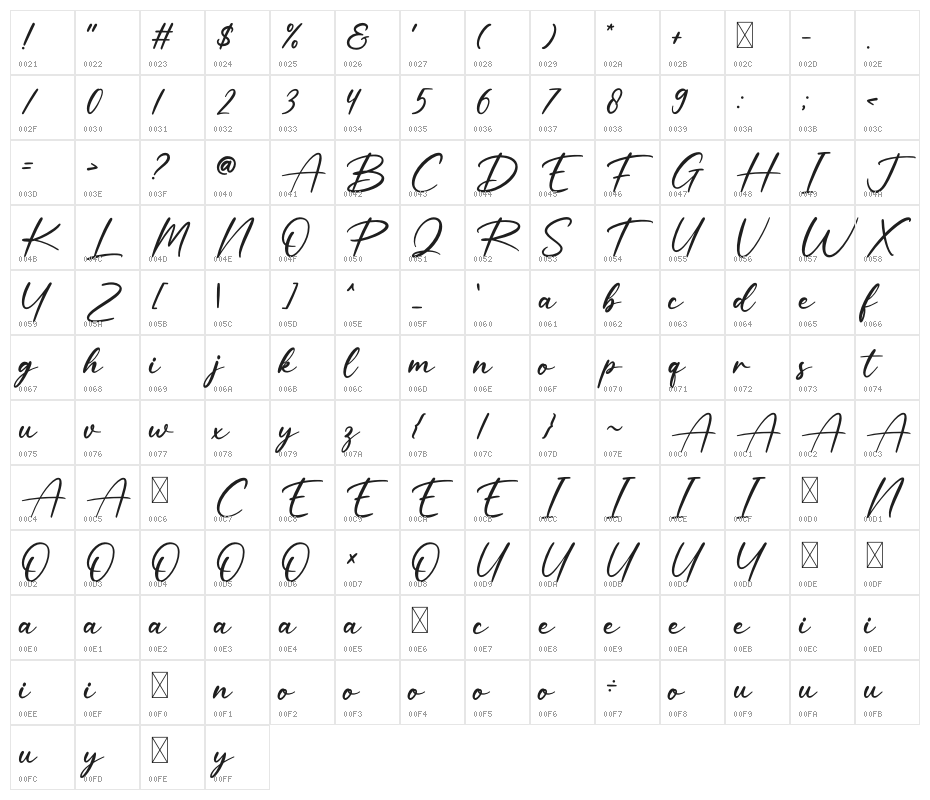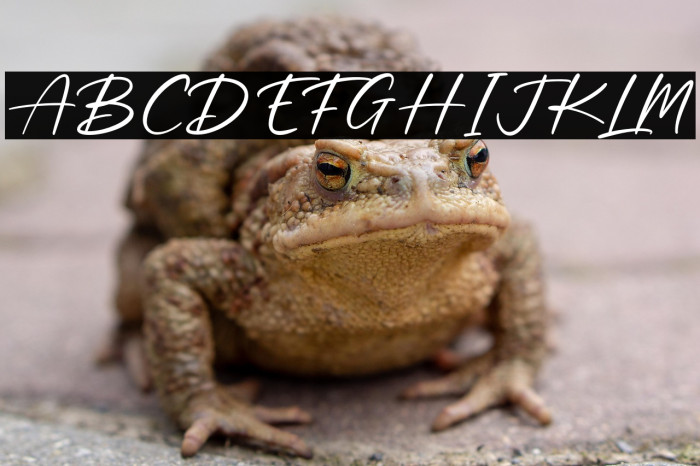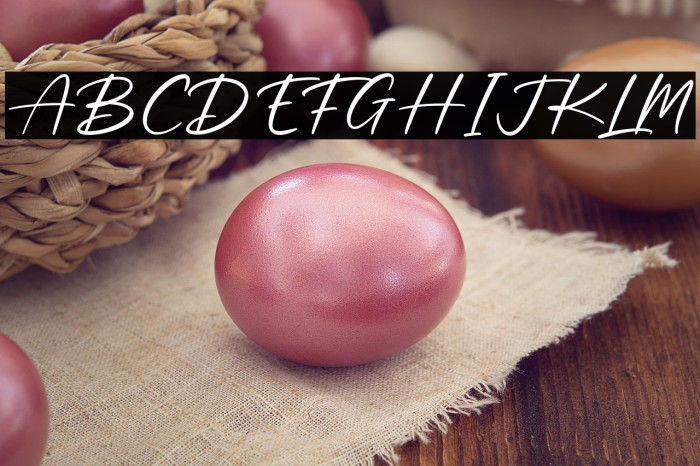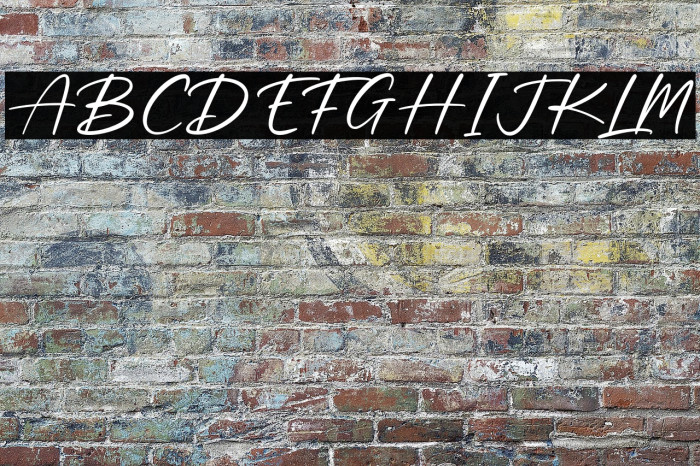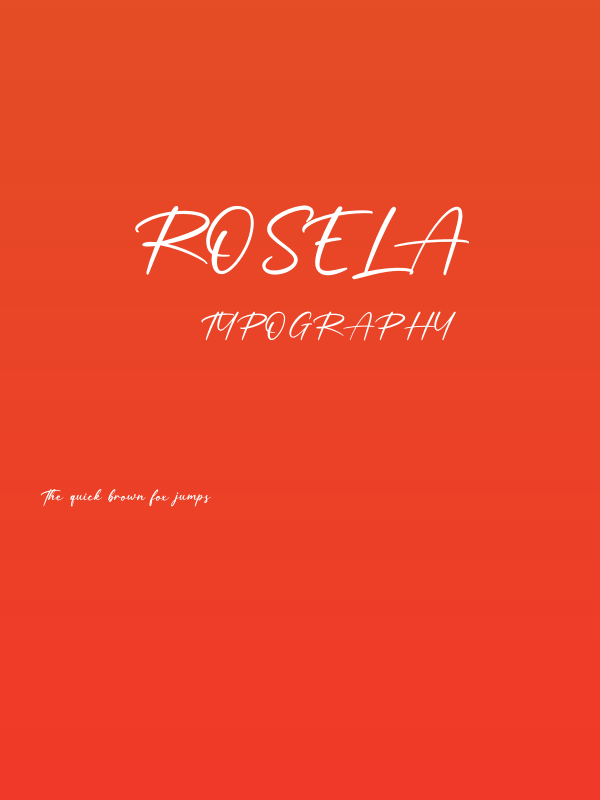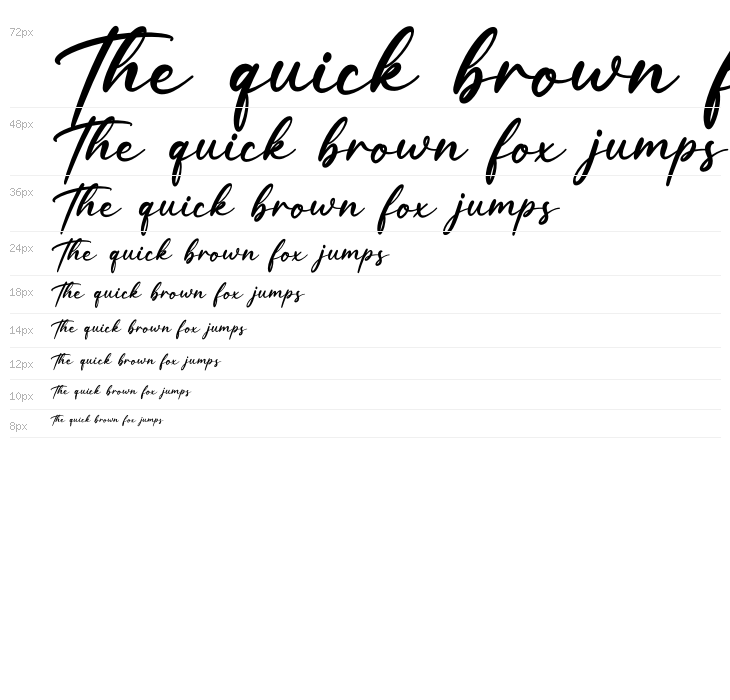
Rosela Font
Rosela Description
This font features a fluid and elegant script style, characterized by its smooth, flowing lines and cursive letterforms. The uppercase letters are slightly more angular, providing a nice contrast to the more rounded and connected lowercase letters. The numerals and special characters maintain the same fluidity, ensuring consistency throughout the typeface. The overall design exudes a sense of sophistication and grace, making it ideal for projects that require a touch of elegance. The font's legibility is enhanced by its moderate character spacing, allowing each letter to stand out while maintaining a cohesive look.
| Proposed Projects | Wedding invitations, greeting cards, branding materials, and elegant packaging designs. |